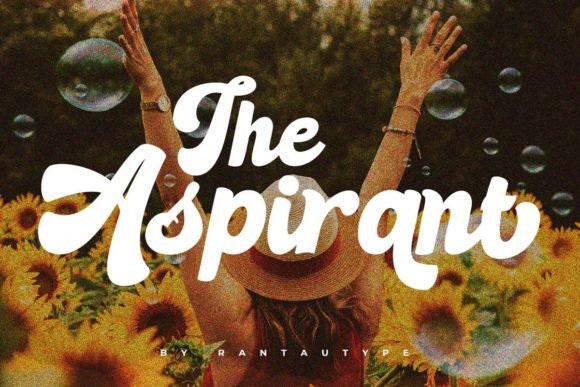
Introducing Aspirant Font: A Retro Script Gem for Your Design Projects
A Design Moment of Frustration and Delight
I recall working on a vintage-themed logo project last year. I had all the elements in place – the color palette, the graphics, and the concept – but something was missing. The font I was using just didn’t capture the essence of the retro vibe I was going for. That’s when I stumbled upon Aspirant, and it was love at first sight! 💕 The unique blend of nostalgia and elegance it offered was exactly what my project needed.
An Honest Review of Aspirant Font
- ✨ Unique Character Set: Aspirant boasts a distinctive set of lowercase and uppercase letters, along with numbers and punctuation, making it versatile for various design applications.
- ✅ Alternate Ligatures and Stylistic Alternates: The font comes with a range of alternate ligatures and stylistic alternates, giving you the flexibility to customize your text and make it truly stand out.
- 🌎 Multilingual Support: With support for multiple languages, Aspirant is an excellent choice for global brands or projects with an international audience.
- 🤔 Learning Curve for Advanced Features: While the basic usage of Aspirant is straightforward, mastering its advanced features, such as ligatures and stylistic alternates, might require a bit of exploration and experimentation.
- ⚠️ Not Suitable for All Types of Projects: Given its retro script nature, Aspirant might not be the best fit for projects requiring a very modern or minimalist aesthetic.
The Backstory of Aspirant Font
While the exact story behind Aspirant’s creation is not widely known, it’s clear that the designers at rantautype were inspired by the classic scripts of the past. With a keen eye for detail and a deep understanding of typography, they crafted Aspirant to be a versatile and beautiful font that captures the essence of retro elegance.
Q: What type of projects is Aspirant best suited for?
A: Aspirant is perfect for projects that require a retro or vintage touch, such as logo design, branding, photography watermarks, quotes, album covers, magazines, and business cards.
Q: Does Aspirant support non-English languages?
A: Yes, Aspirant offers multilingual support, including English, French, Friulian, Galician, German, Irish, Italian, and many more.
With Aspirant font, you’re not just getting a typeface; you’re getting a tool to elevate your design work and bring a touch of nostalgia and elegance to your projects. Whether you’re a professional designer or a creative hobbyist, Aspirant is sure to inspire and enhance your creative endeavors.